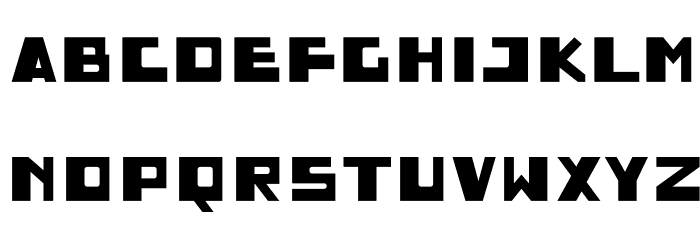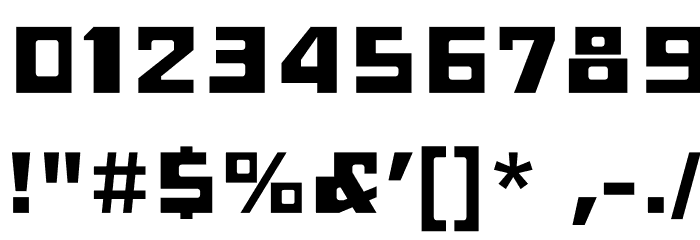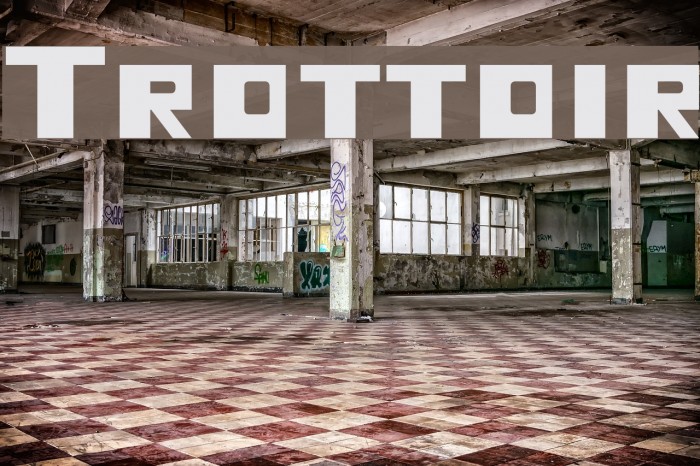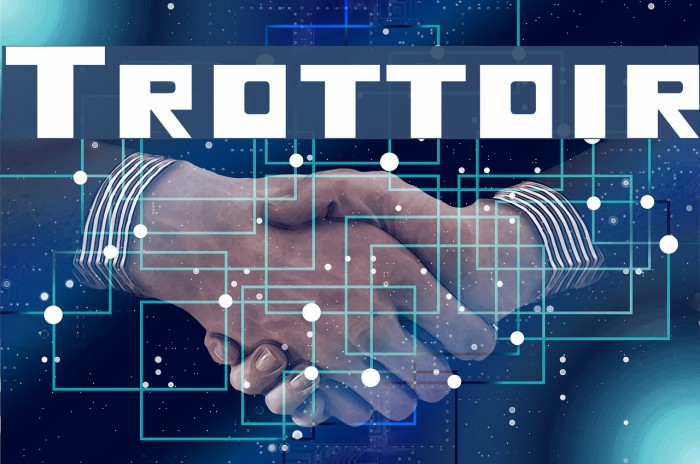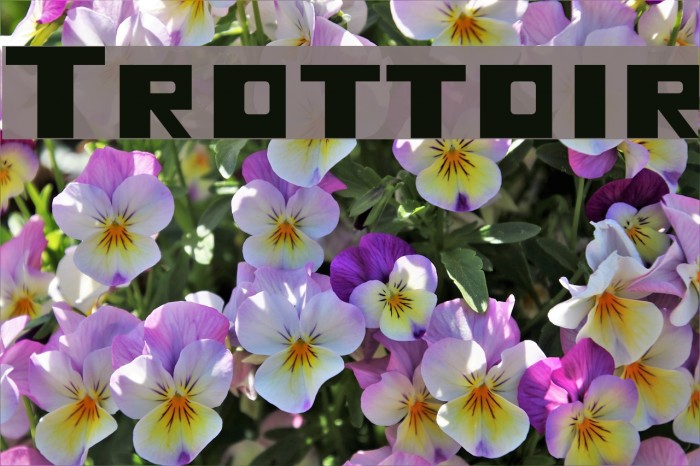
Trottoir Font
This font features a bold and geometric design with a strong presence. The characters are constructed with thick, block-like strokes that give it a robust and industrial feel. The angular edges and uniform line thickness contribute to its modern and assertive appearance. The uppercase and lowercase letters maintain a consistent style, with a slight variation in size and shape to distinguish them. The numerals are equally bold, ensuring readability and impact. Special characters are designed to match the overall aesthetic, making this font suitable for a variety of applications where a strong visual statement is desired.
A bold, geometric font with a strong, industrial presence.
- Font: Trottoir
- Proposed Projects: Ideal for branding, posters, headlines, and signage where a bold statement is needed.